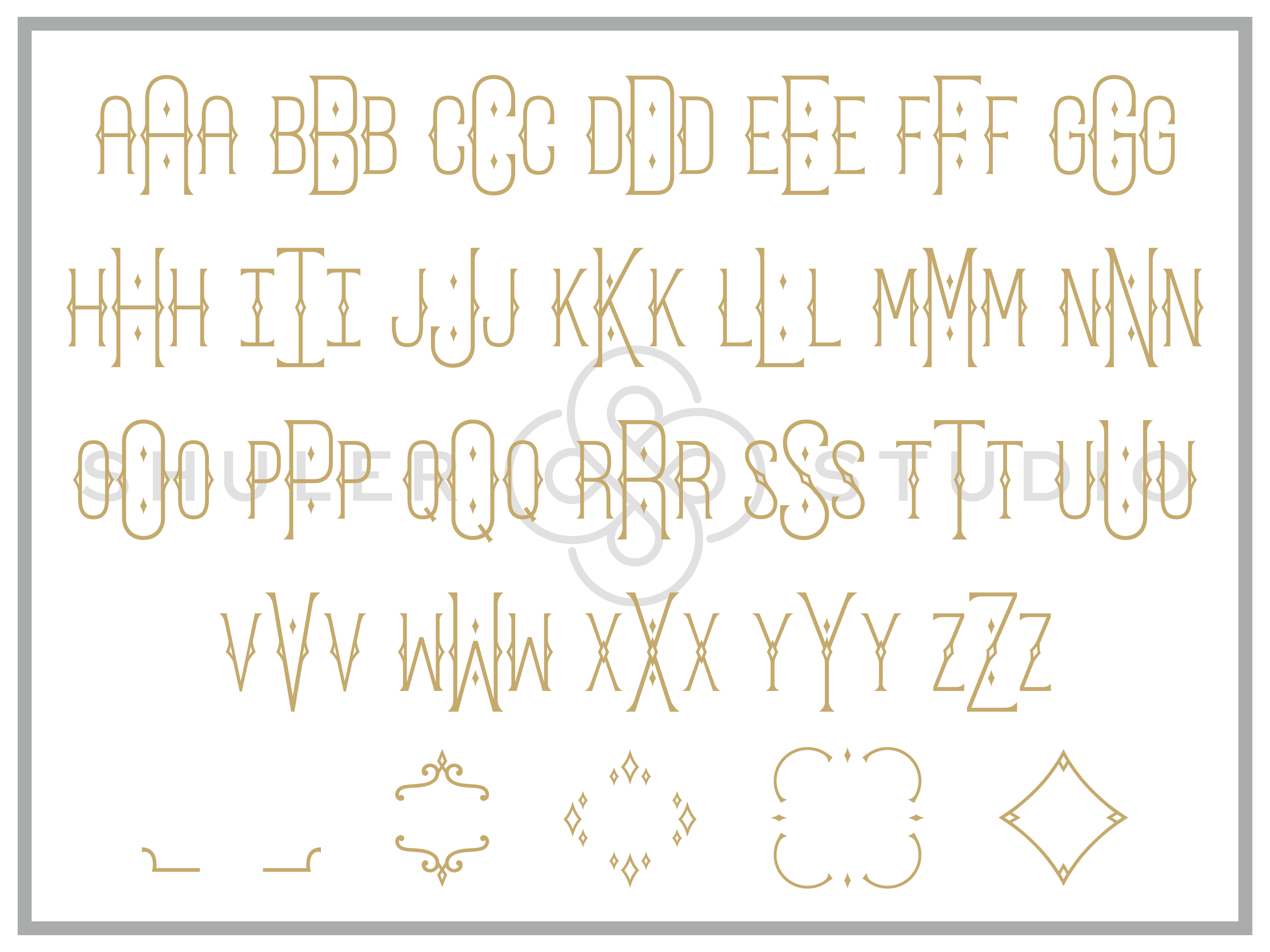
Monogram Meridian Font for Embroidery
Monogram Meridian is a timeless, elegant monogram font featuring graceful arches, beautifully curved legs, and refined diamond accents. The result is a beautiful font that can be used as a 1, 2, or 3-letter monogram, or as a name.
Monogram Meridian includes 26 center letters as the master size, 26 coordinating right/left letters, and 5 coordinating frames. This packages comes in:
Perfect for embroidery, the careful attention in the digitization of each design makes personalization unique and beautiful!